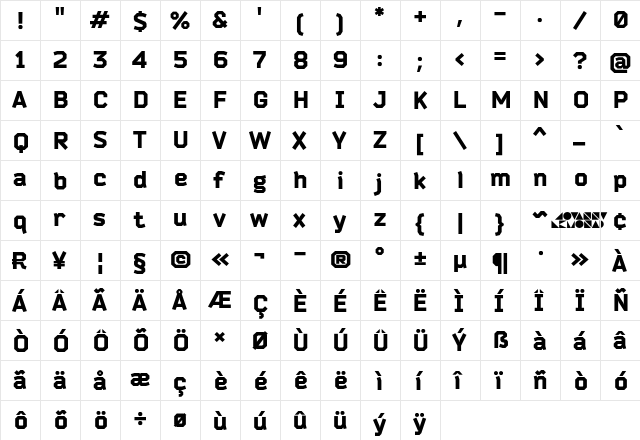
Bender Black
| Foundry | Oleg Zhuravlev, Gladkikh Ivan |
| Designer | Oleg Zhuravlev, Gladkikh Ivan |
Design Context for Bender Typeface
Bender takes a measured approach to typography — its balanced proportions and neutral character make it a reliable workhorse for both digital and print work.